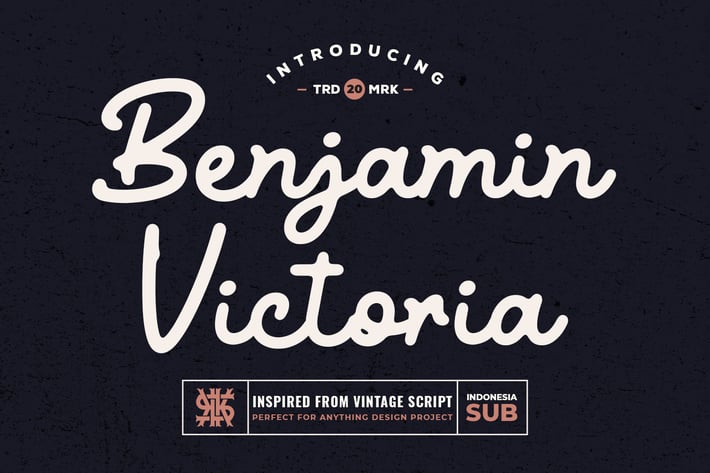
Benjamin Victoria - Retro Script Font
Benjamin Victoria is a retro handwritten script font. Perfect for making elegant stylish statements - or adding a touch of class to your designs. This script has a multitude of natural-looking ligatures in its OpenType features - making the font look as close to natural handwriting as possible.
Benjamin Victoria is perfect for many different projects such as logos & branding, invitation, stationery, wedding designs, social media posts, advertisements, product packaging, product designs, label, photography, watermark, special events, or anything.